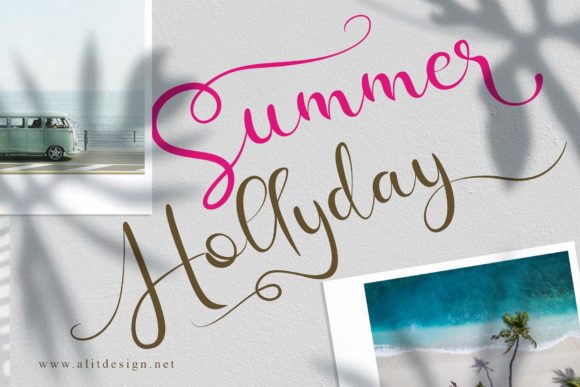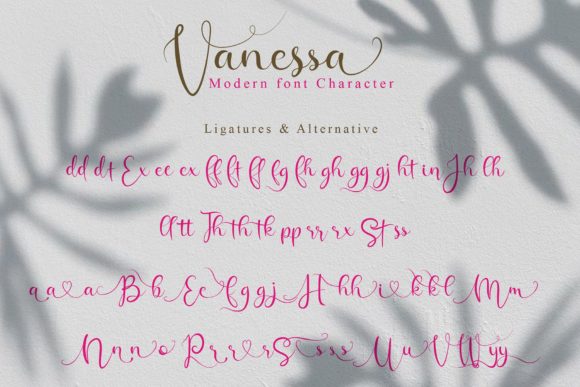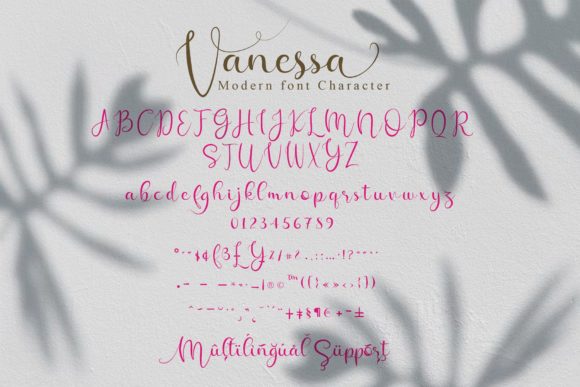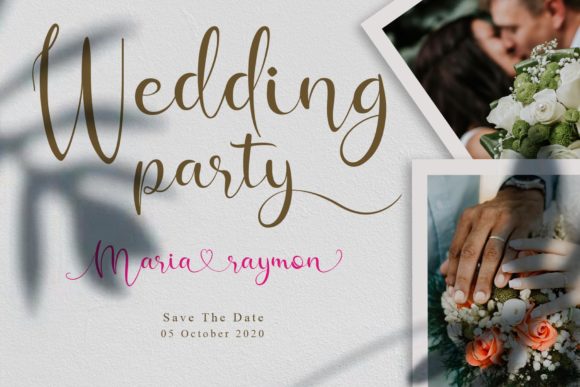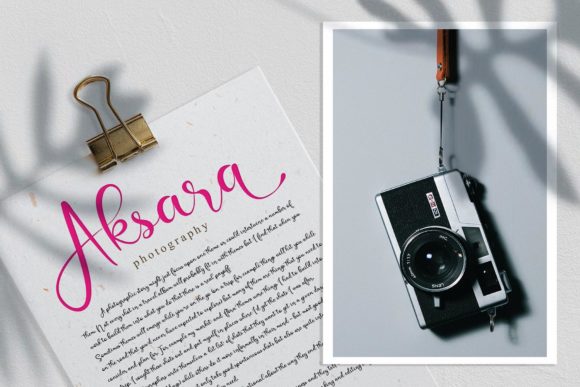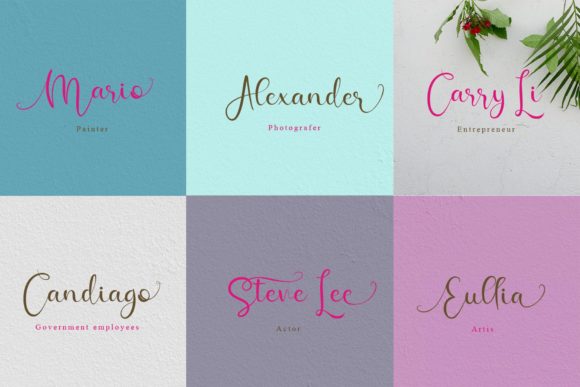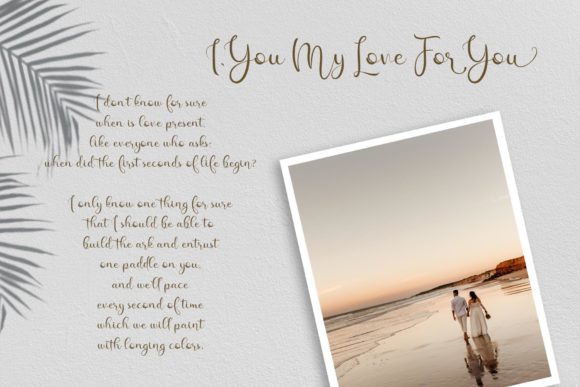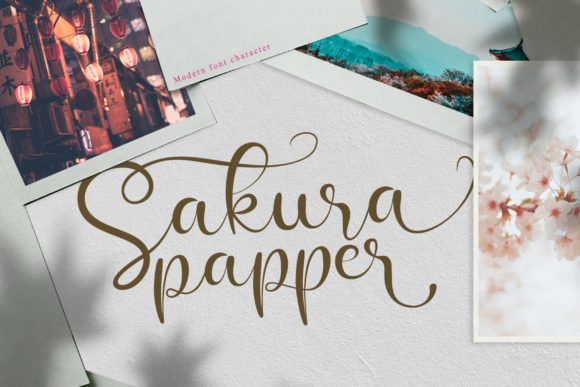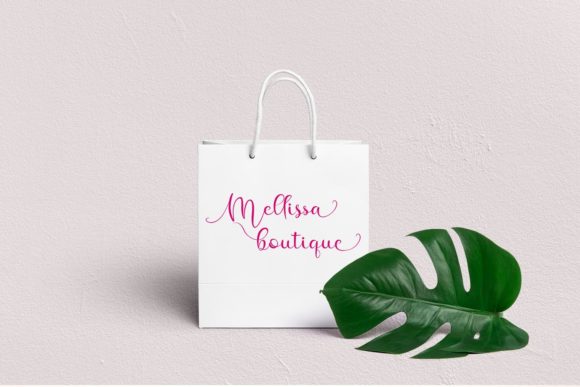
Vanessa Font
About Vanessa Font
Vanessa is a romantic and beautiful handwritten font. It comes with a very natural ligature surprise so it is suitable for any design needs such as printed quotes, invitation cards, social media, product packaging, web and so much more!